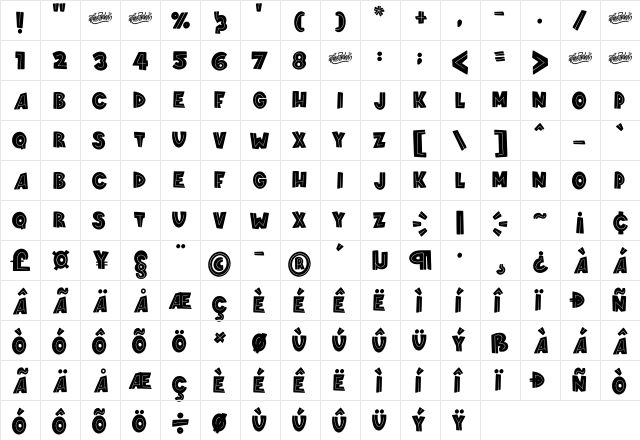
springloved inline Regular
| Designer | Almarkhatype 2020 - Abdul malik - Ghazi |
Design Context for springloved inline Typeface
springloved inline brings ornamental detail and strong personality to headlines and identities, where visual impact matters more than quiet functionality.
Font Pairing: Pair with a clean neutral sans-serif for body copy to let springloved inline's character lead without overwhelming the composition.
Pro Tip: Use springloved inline exclusively at display sizes — it was designed to be seen, not read at length. Let a neutral companion handle body copy.